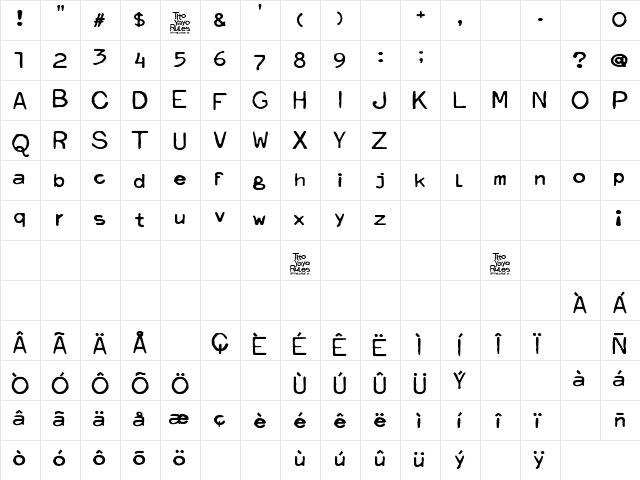
Tito Yayo Rules Regular
Design Context for Tito Yayo Rules Typeface
Tito Yayo Rules is a composed and adaptable typeface that performs quietly and consistently across a wide range of design contexts.